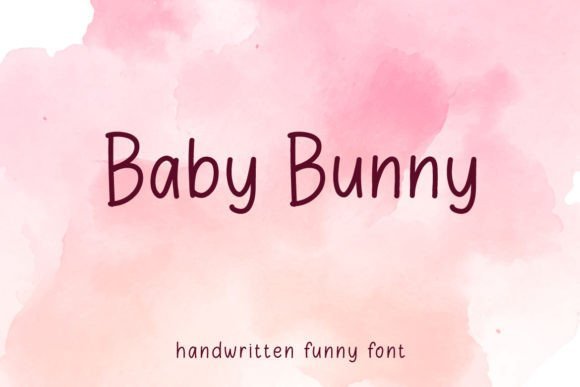
Have you ever found yourself doodling in the margins of a notebook, trying to capture the perfect smile or the sparkle in a child’s eye? For designers, those moments of creative freedom are what make our jobs truly special. And sometimes, all it takes is the right font to bring a design to life.
That’s where the Baby Bunny Font comes in – a comically handwritten typeface that’s sure to add a playful and adorable touch to your designs. Whether you’re working on a comic strip, a greeting card, or a children’s book, this font is the perfect addition to bring a dash of humor and charm to your work.
As a valuable tool in any designer’s arsenal, the Baby Bunny Font is a must-have for anyone looking to add a little whimsy to their designs. With its unique and endearing style, it’s sure to capture the hearts of your audience and leave a lasting impression.
Baby Bunny Font Key Features
- Unique Characteristics: Whimsical, childlike design with a playful bunny theme, perfect for children’s books, nursery decorations, and other family-friendly projects
Baby Bunny Font Review
Overall, I have mixed feelings about the Baby Bunny Font. On one hand, it’s a cute and playful font that’s sure to bring a smile to people’s faces. The rounded edges and soft lines give it a friendly and approachable feel. ✨ It’s perfect for children’s books, nursery decor, or any other project that requires a lighthearted touch.
One of the things that works well with this font is its versatility. It comes in a range of weights and styles, from bold and playful to delicate and whimsical. ✨ This makes it easy to use in a variety of contexts, from headlines to body text.
However, there are some limitations to the Baby Bunny Font that should be noted. ⚠️ For one, it’s not the most readable font, especially at smaller sizes. The rounded edges and soft lines can make it difficult to distinguish between certain letters and words. ⚠️ Additionally, the font is quite sweet and cutesy, which may not be suitable for more serious or professional projects.
- ✨ Cute and playful design
- ✨ Versatile and comes in a range of weights and styles
- ⚠️ Not the most readable font, especially at smaller sizes
- ⚠️ May not be suitable for serious or professional projects
Overall, I think the Baby Bunny Font is a great choice for the right project. While it may not be the best font for every situation, it’s a fun and playful option that’s sure to bring a smile to people’s faces.
Practical Application Guide for Baby Bunny Font
The Baby Bunny Font is ideal for:
- Infant product labels and packaging
- Whimsical greeting cards and stationery
For the best results, use the Baby Bunny Font in combination with pastel colors and playful graphics to create a charming and youthful design.